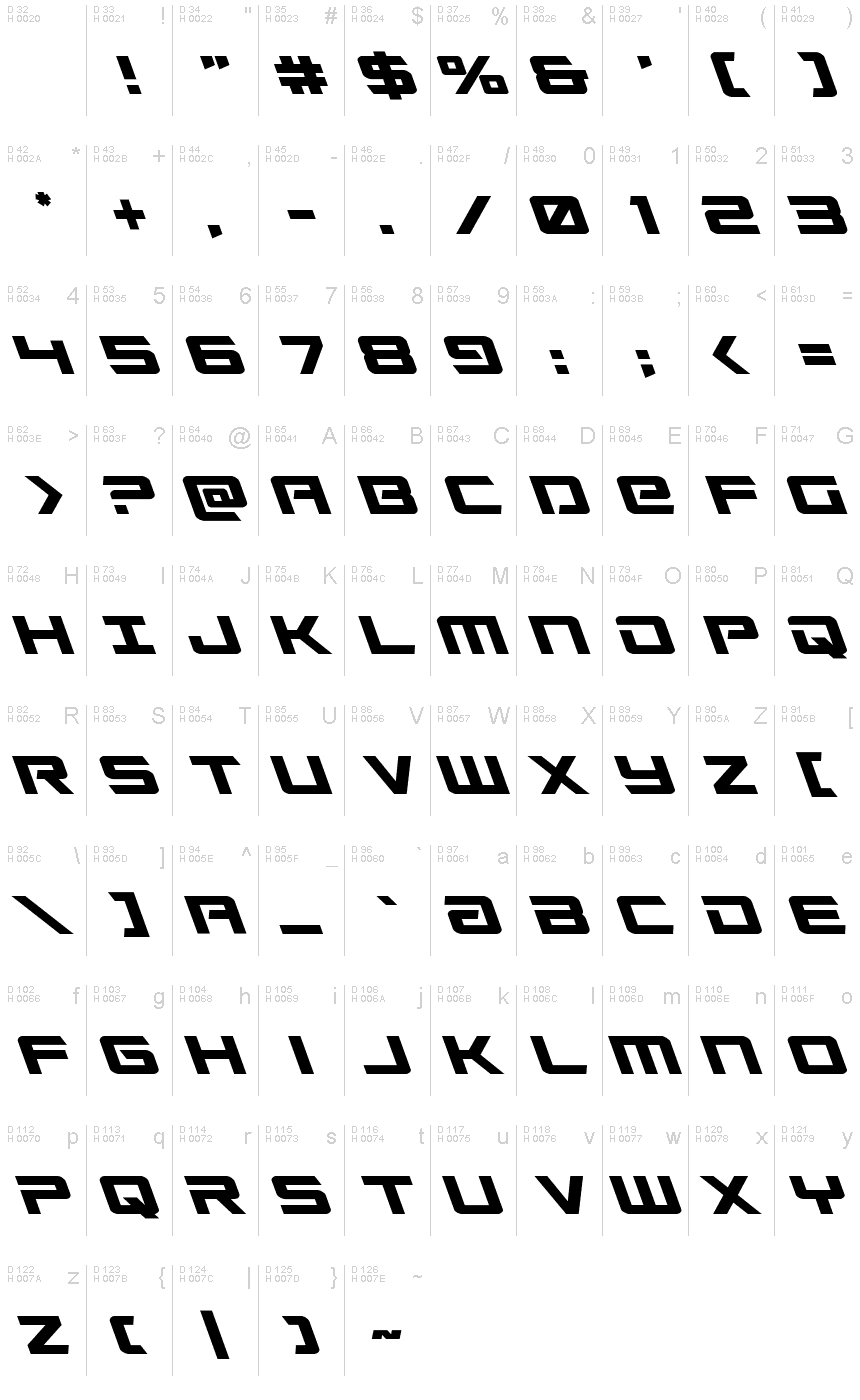
Captain Falcon Super-Leftalic
Meet Captain Falcon Super-Leftalic, a cutting-edge addition to the Captain Falcon font family by Iconian Fonts. This display font boasts a semi-bold weight and extra-expanded width, making it perfect for projects that demand an attention-grabbing futuristic style. With its sleek and innovative design, Captain Falcon Super-Leftalic is well-suited for bold headlines in sci-fi movie posters, high-tech product packaging, or futuristic video game titles. Let this font take your creative endeavors to new heights as you captivate your audience with its striking presence and avant-garde charm. Elevate your designs with Captain Falcon Super-Leftalic today!